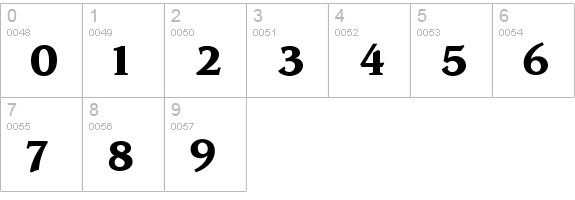
LeawoodBold Font Details
LeawoodBold is a captivating and versatile font that exudes confidence and elegance. Its bold and commanding presence makes it a perfect choice for headlines, titles, and any design that requires a strong visual impact. With its clean and modern lines, LeawoodBold effortlessly stands out and grabs the attention of viewers. This font's unique and stylish letterforms showcase a perfect balance between classic design and contemporary aesthetics. Its bold weight adds a touch of sophistication and authority to any project. Whether you're designing a logo, poster, or website, LeawoodBold is sure to leave a lasting impression. One of the most remarkable aspects of LeawoodBold is that it is available for free. Yes, you heard that right! You can freely download this exceptional font at FontsMarket.com. This means that not only can you enjoy its premium quality and striking design, but you can also save on your budget without compromising on the visual impact of your designs. LeawoodBold's versatility extends beyond just the digital realm. It adapts beautifully to various mediums, making it suitable for both print and online projects. Its legibility remains intact even at smaller sizes, ensuring that your message is conveyed effectively and effortlessly. With LeawoodBold, you have the power to create captivating designs that demand attention. Its bold and confident personality, combined with its availability for free at FontsMarket.com, makes it a must-have font for designers, creatives, and anyone seeking to make a bold statement with their typography. Download LeawoodBold today and elevate your designs to new heights.